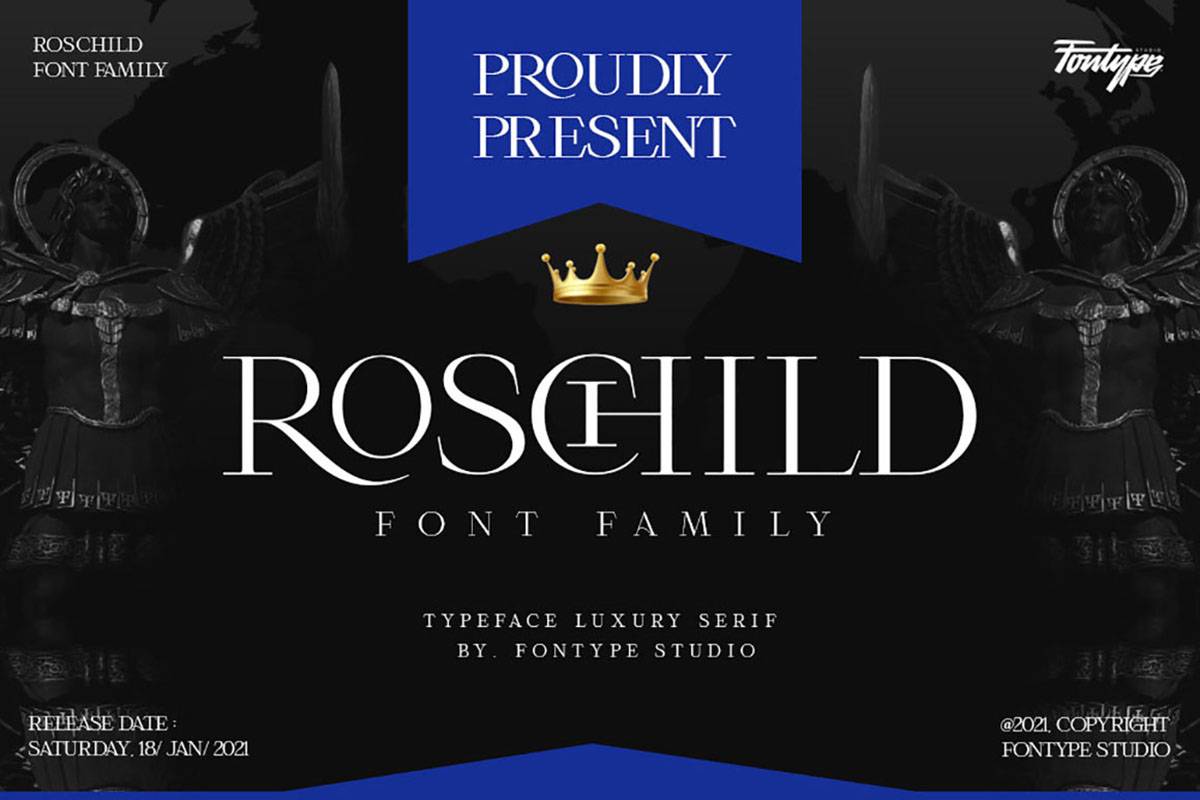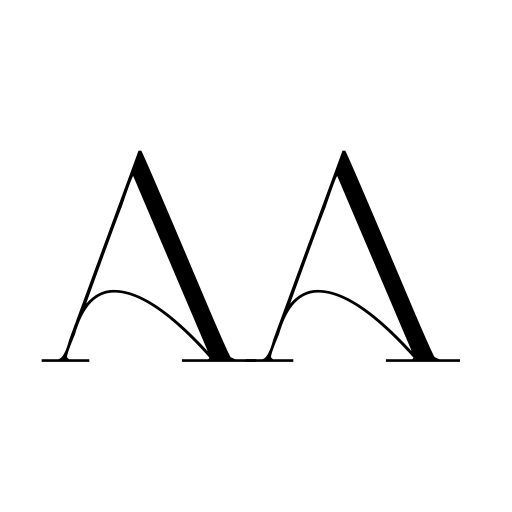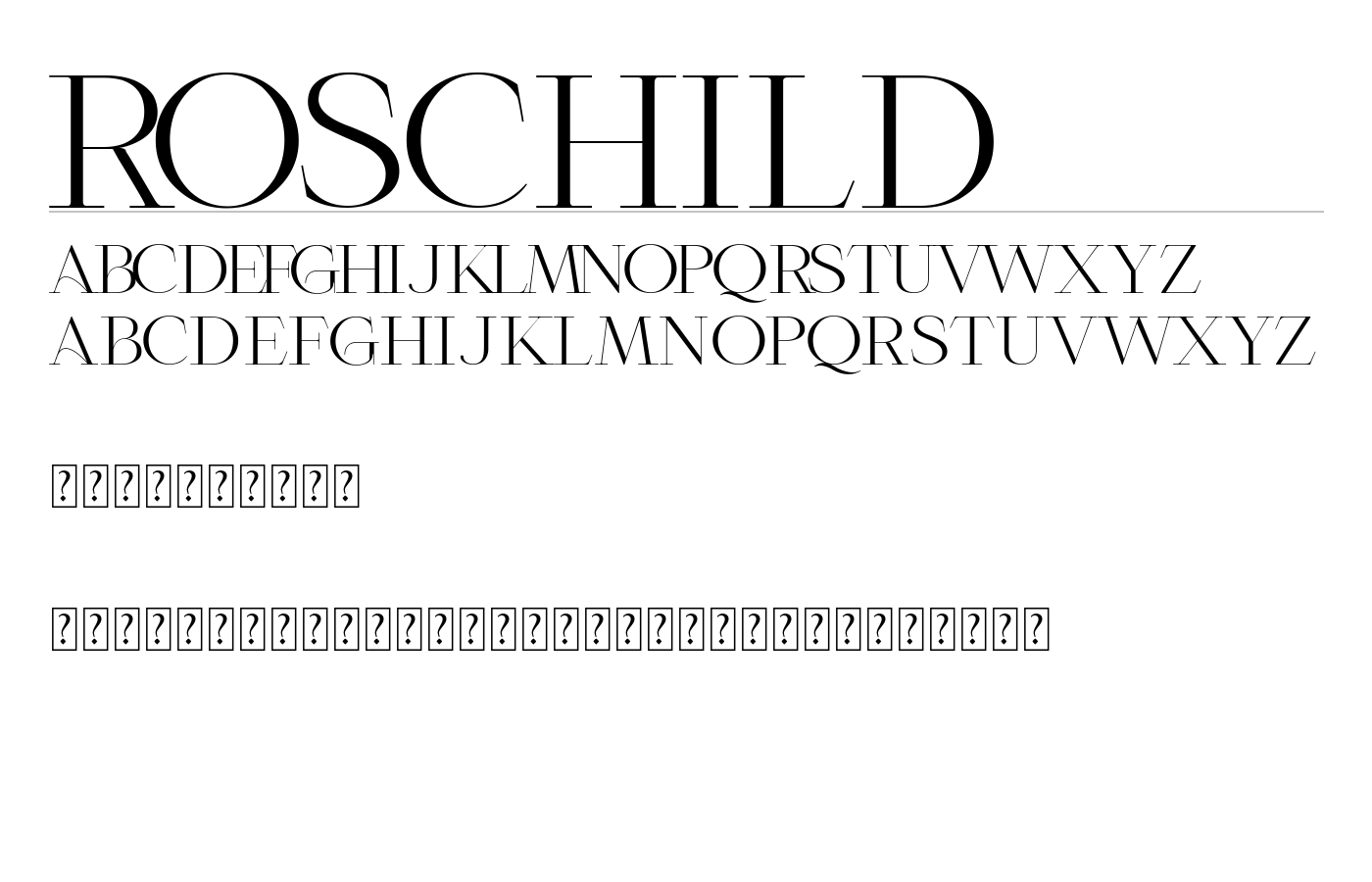
Roschild is an elegant serif font that features a modern Didone style with high contrast between thick and thin strokes, giving it a refined and luxurious feel. Its tall, slender letterforms and delicate serifs make it ideal for upscale branding, fashion magazines, and sophisticated editorial headlines where a stylish and classic appearance is desired.
Roschild Font
About Roschild Font
| Font family | Roschild Font |
| Designer | Ridwan Fadilah |
| Trademark | Fontype Studio |